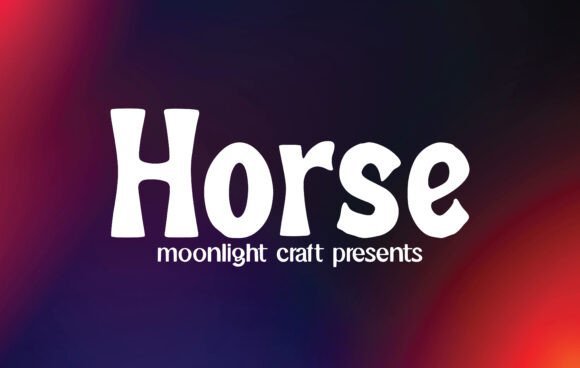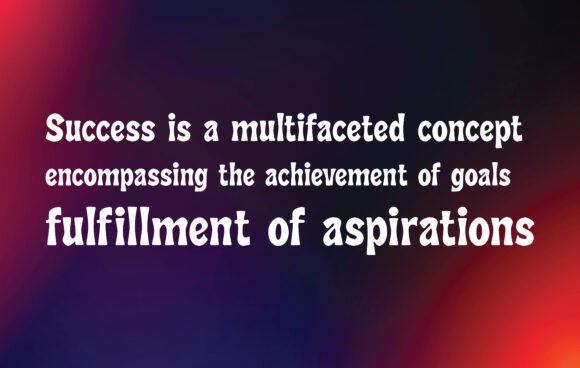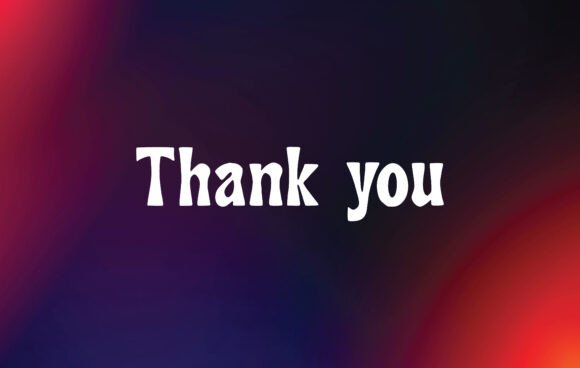
Horse Font: The Perfect Partner for Your Next Creative Project
Have you ever been brainstorming for hours, trying to find the perfect combination of words to capture the essence of your brand, only to have it all come together in a moment of pure creative magic? That’s exactly what happened to me when I stumbled upon the Horse Font. This lovely handwritten font has a way of elevating your ideas to new heights and making them truly unforgettable.
The Horse Font is a versatile tool designed to help you create stunning logos, branding, and quotes that leave a lasting impression. Its unique, elegant style makes it the perfect choice for designers looking to add a touch of sophistication to their work. Whether you’re working on a personal project or collaborating with clients, the Horse Font is an invaluable asset that’s sure to take your designs to the next level.
Horse Font Key Features
- Unique Characteristics: Horse Font features a unique, hand-drawn design with bold lines and playful strokes, giving it a distinctive and eye-catching appearance.
- Character Set: The font includes a wide range of characters, including uppercase and lowercase letters, numbers, punctuation marks, and special characters.
Horse Font Review
I recently had the chance to work with the Horse Font, and I must say it was an interesting experience. Here are my thoughts.
- ✨ Unique character: The Horse Font has a distinctive and quirky character that can add a touch of whimsy to your designs.
- ✨ Good for illustrations: The font’s style lends itself well to illustrations and graphics, making it a great choice for projects that require a playful feel.
- ✨ Easy to use: The font is relatively easy to use, even for designers who are new to working with custom fonts.
- ⚠️ Limited legibility: At small sizes, the font can be difficult to read, which may limit its use in certain applications.
- ⚠️ Not suitable for body text: The font’s style is not well-suited for large blocks of text, as it can be overwhelming and difficult to read.
- ⚠️ Limited font weights: The font only comes in a few weights, which may limit its use in projects that require a wide range of font weights.
Overall, I think the Horse Font is a great choice for designers who are looking to add a unique touch to their projects. While it may have some limitations, it’s a fun and creative font that can add a lot of personality to your designs.
Tips for Getting the Most Out of Horse Font
To get the most out of Horse Font, try the following:
- Use it in combination with other playful fonts for a unique look.
- Use it in headings or titles to add a touch of whimsy.
Horse Font is commonly used in:
- Children’s books and educational materials.
- Party invitations and decorations.
- Brand identities and marketing materials.